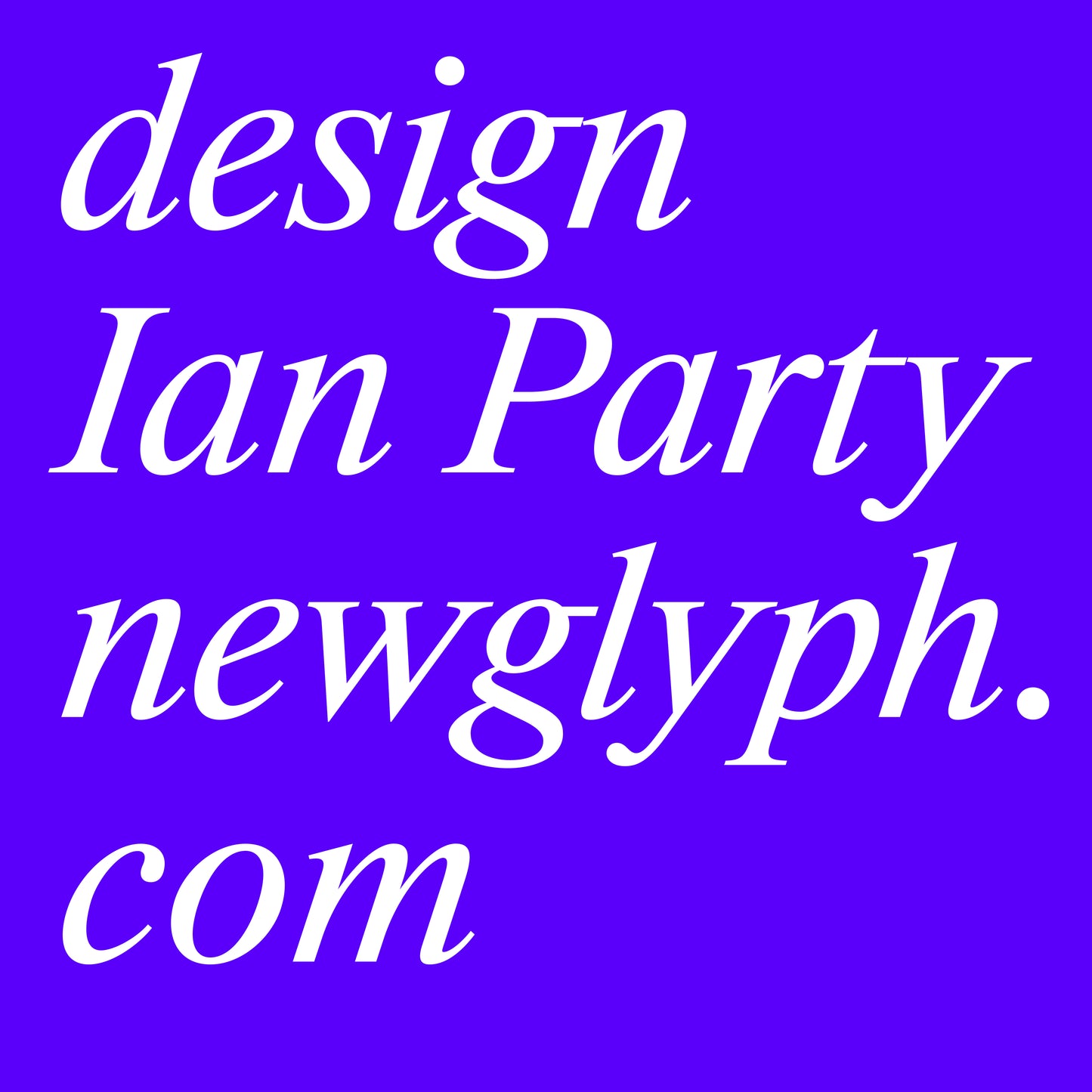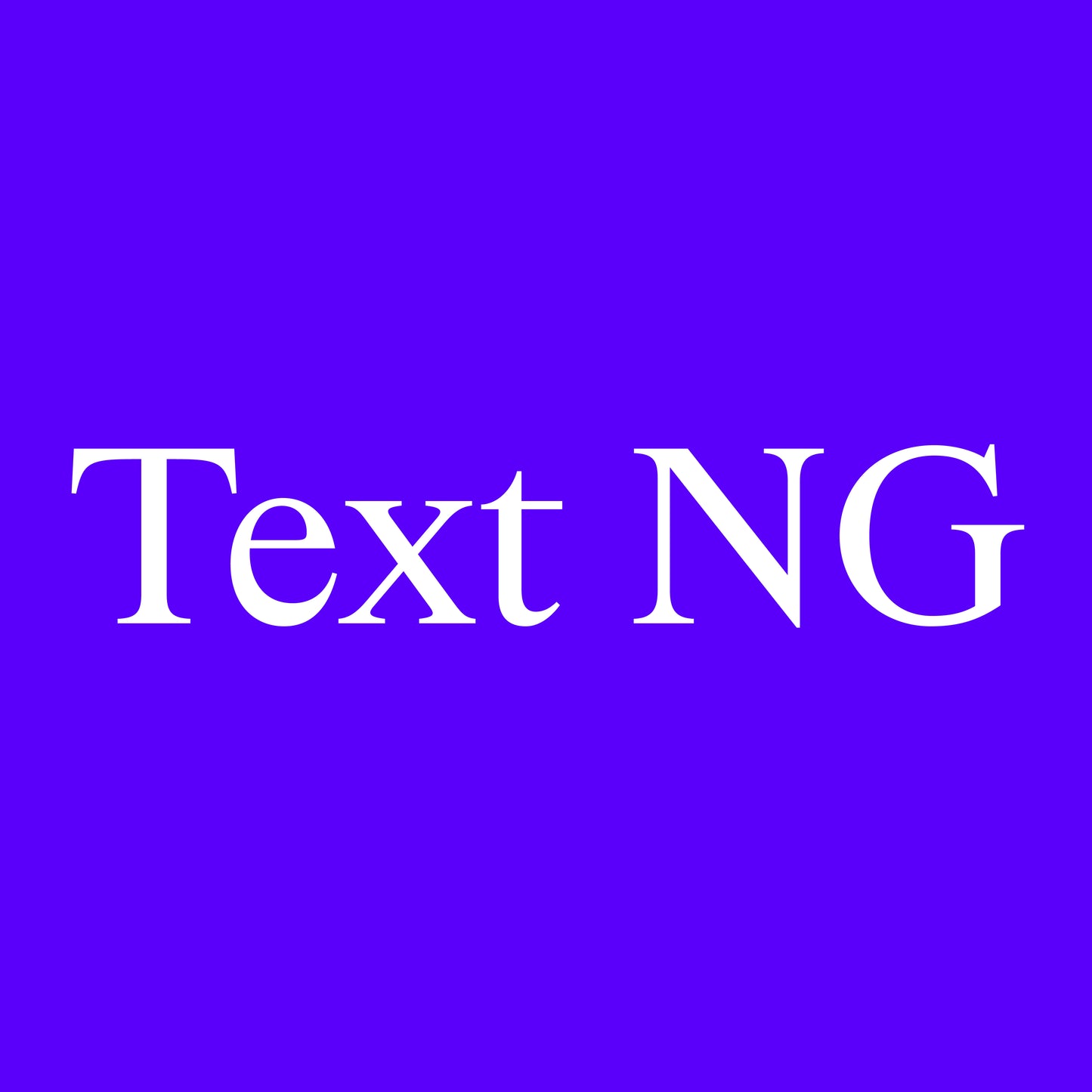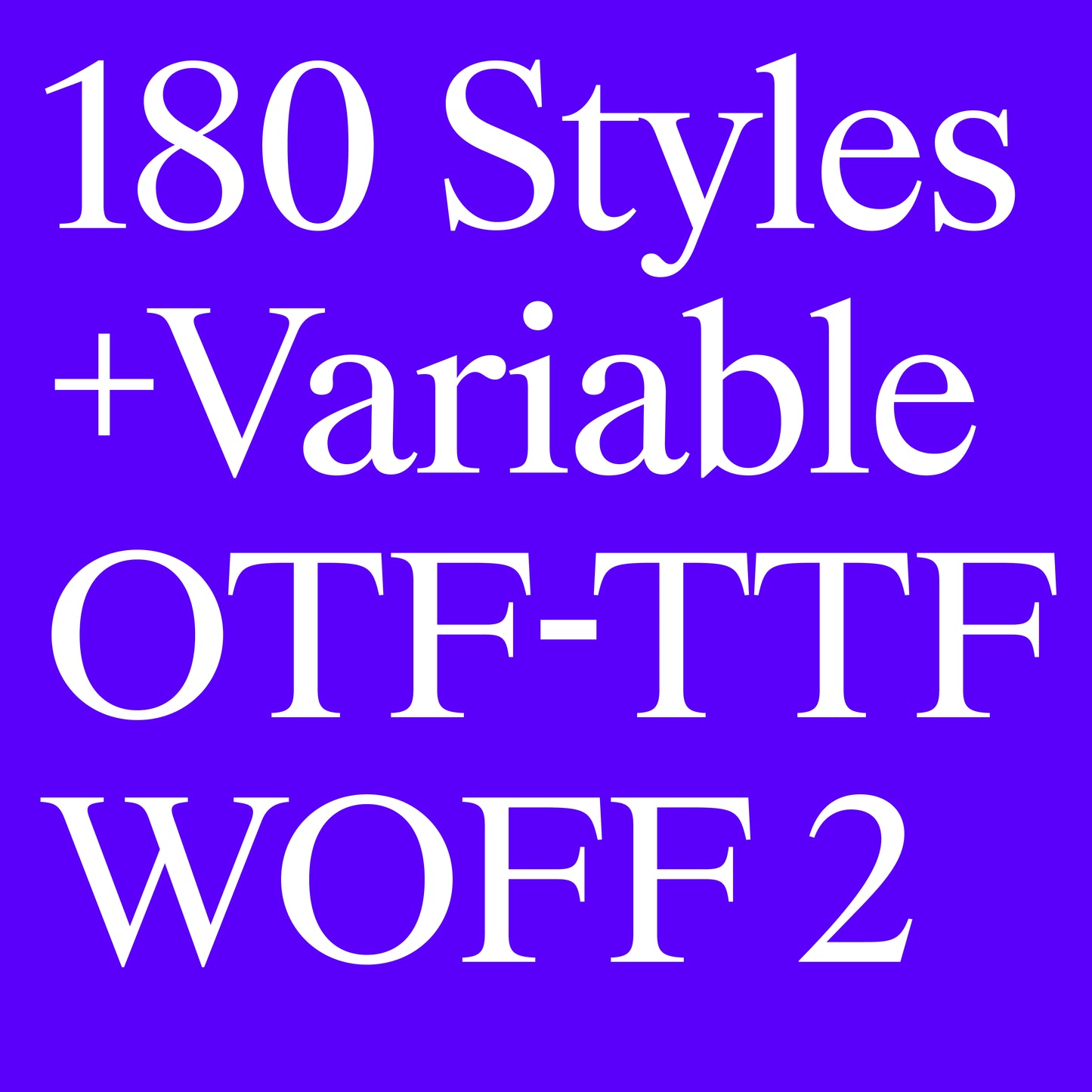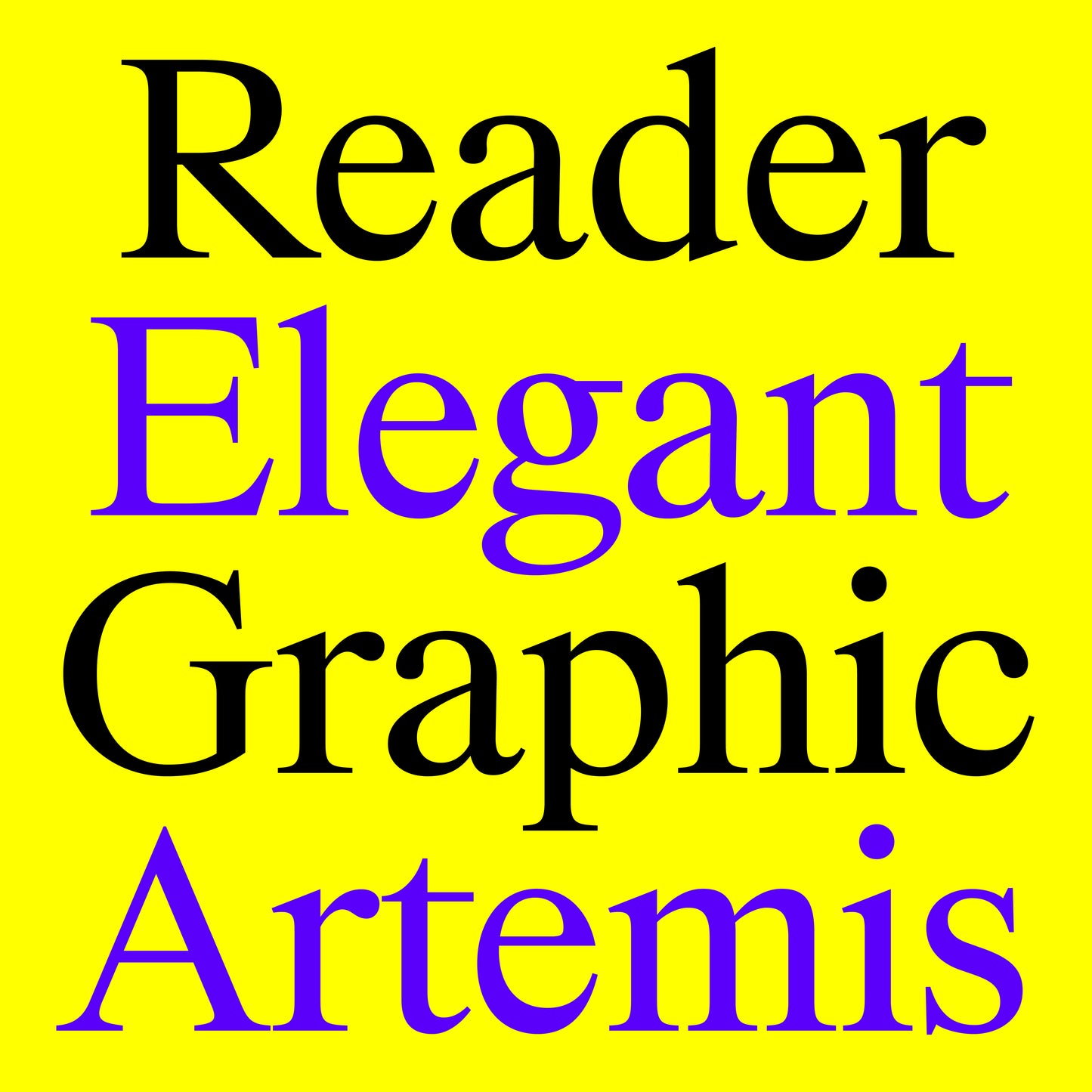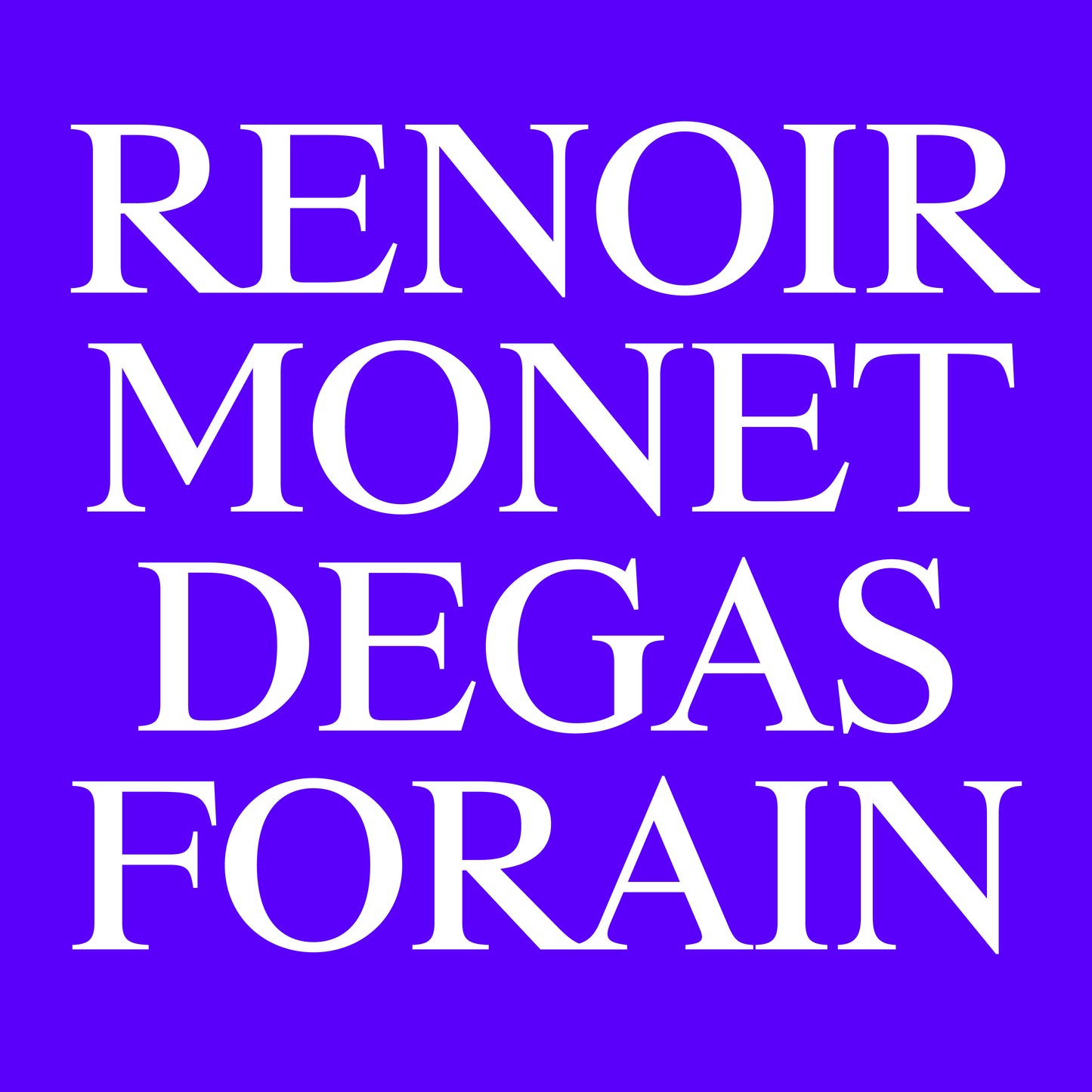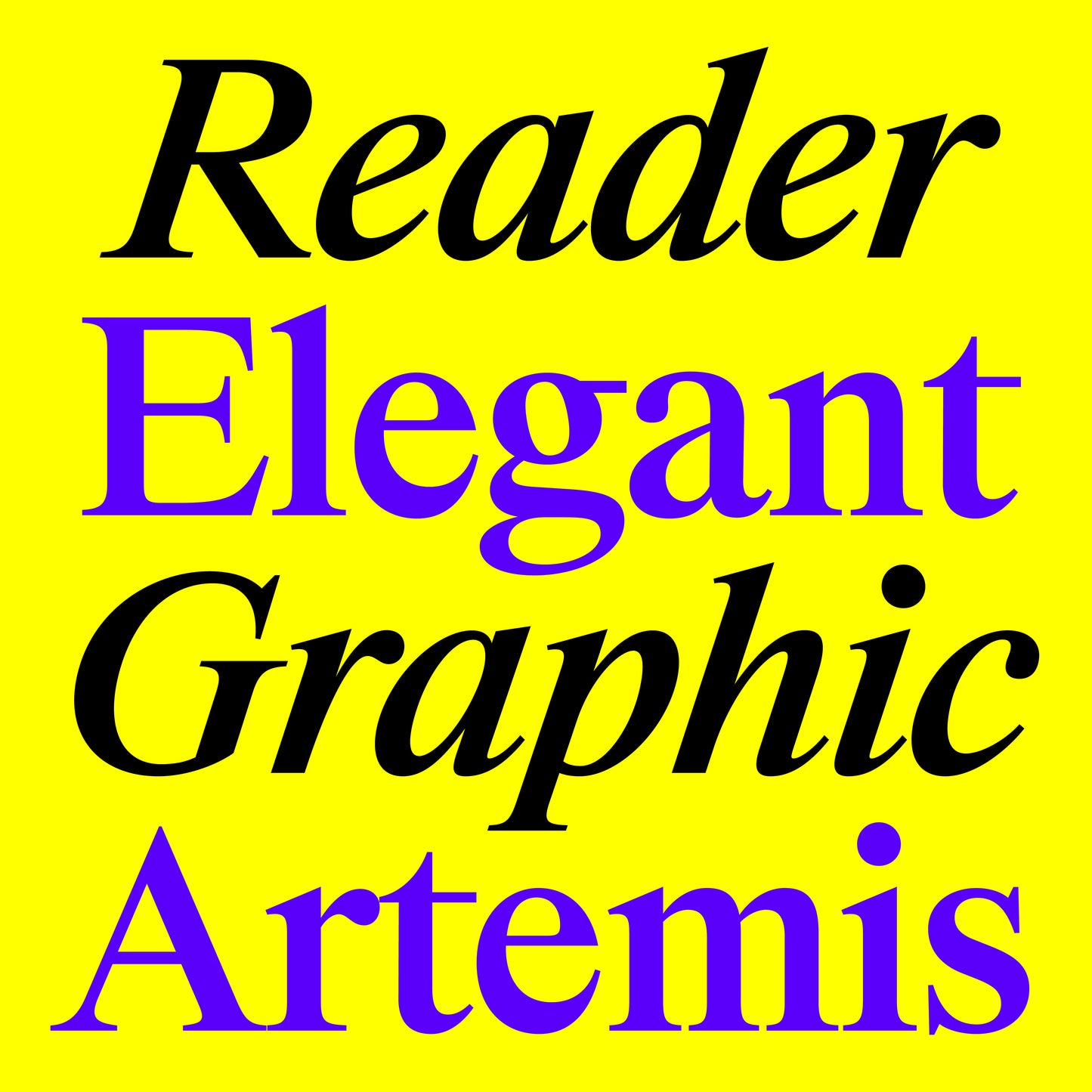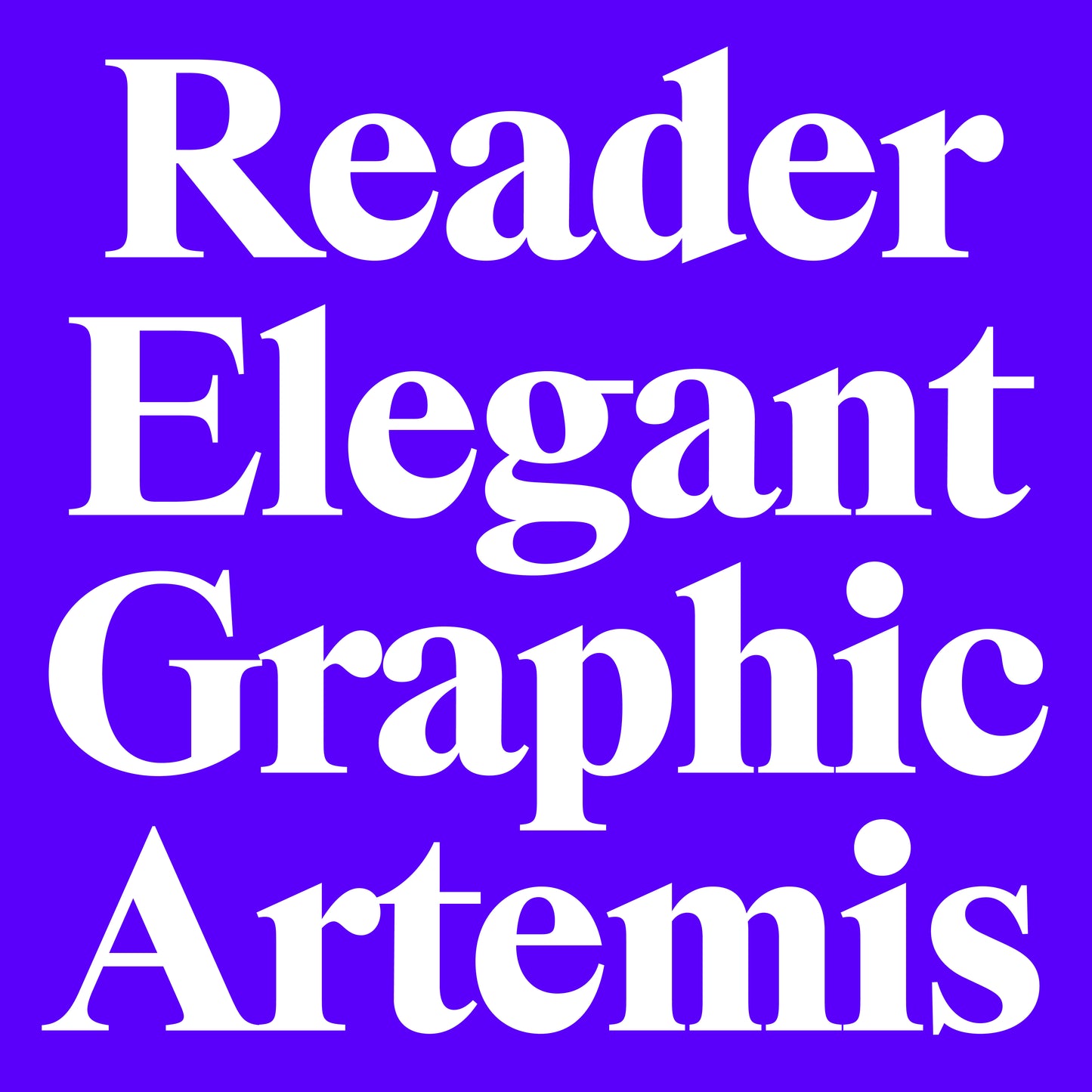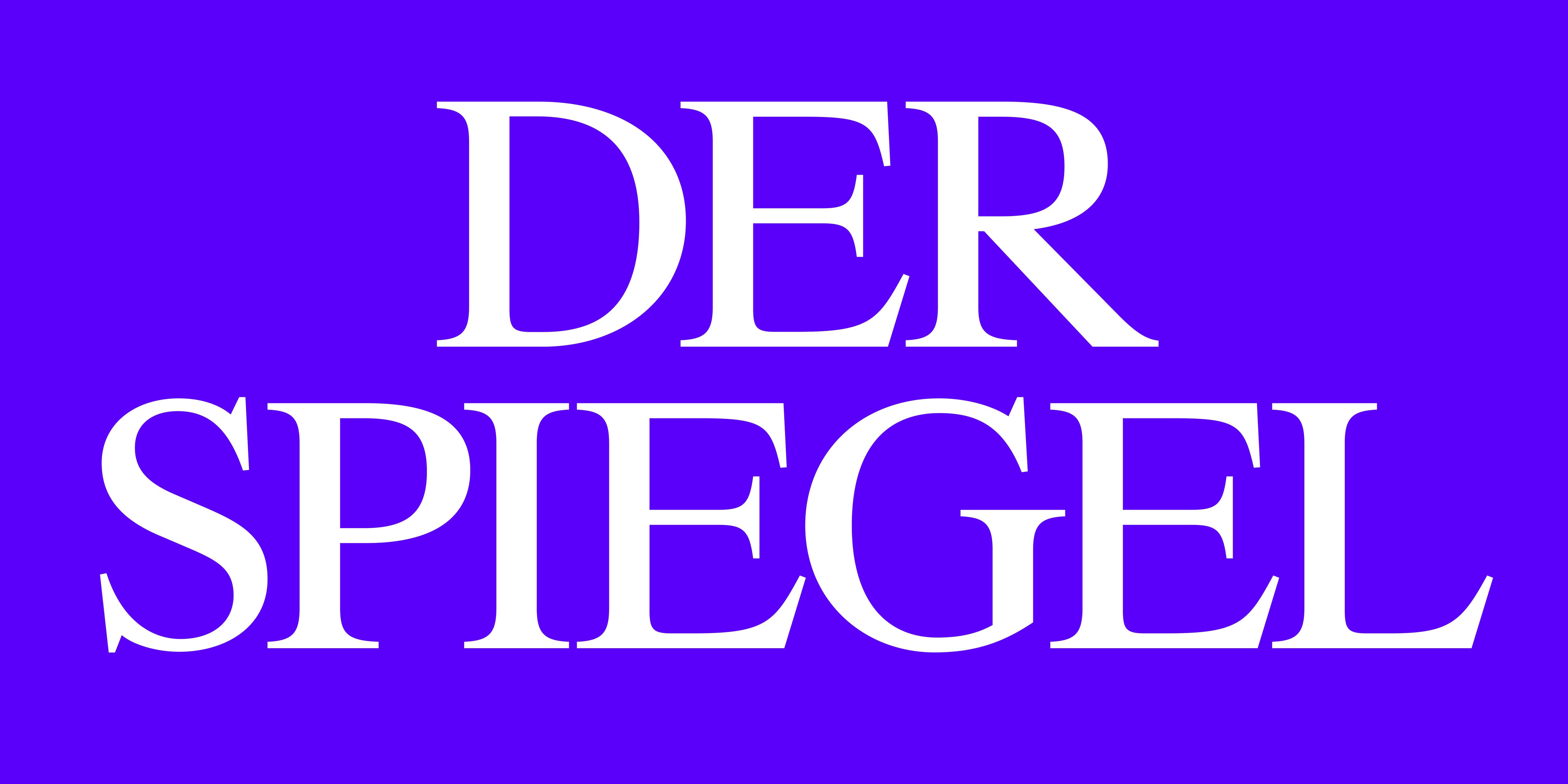
Text NG
Time NG, designed by Ian Party, is a variable serif typeface that reimagines the timeless elegance of the Times New Roman legacy. Designed for clarity, refinement, and adaptability, it captures the essence of traditional newspaper typography while bringing it into the modern design landscape.
Originally crafted for efficient readability in print, the “Times” style became one of the most recognisable typefaces in history. Time NG builds on this foundation, refining its sharp serifs, balanced contrast, and crisp proportions for a new generation of designers. With 12 styles and 2 variable fonts, it offers versatility across editorial design, branding, and digital interfaces.
Whether you're designing for high-end publications, contemporary websites, or bold headlines, Time NG delivers sophistication with a fresh, modern twist.